Useful type with an edge
Production Type
Jean-Baptiste Levée
Type Project interview with Jean-Baptiste Levée.
1. Tell us about your company.
Based in Paris, Production Type is a digital type design agency. Our activities span from the exclusive online distribution of our retail type for design professionals, to the creation of custom typefaces for the industrial, luxury, fashion and media sectors.
Jean-Baptiste Levée, founder of Production Type, works methodically in a process where history and technology are approached altogether within the nuances of artistry. He manufactures functional, yet versatile digital platforms for designers to build upon. Levée has designed over a hundred typefaces for industry, moving pictures, fashion and publishing. His work has won multiple awards and has been shown internationally in group and solo shows. It is featured in the permanent collections of the French national library (BnF) and the National Center of arts (Cnap); of the Newberry Library in Chicago, and several printing museums in Europe.
2. What is (are) the main/leading font(s) of your company?
People seem to enjoy Stratos and Proto Grotesk. We’ve recently expanded both in the Cyrillic and Greek scripts. We also see a fair share of use of the less discreet Minotaur and Mars.
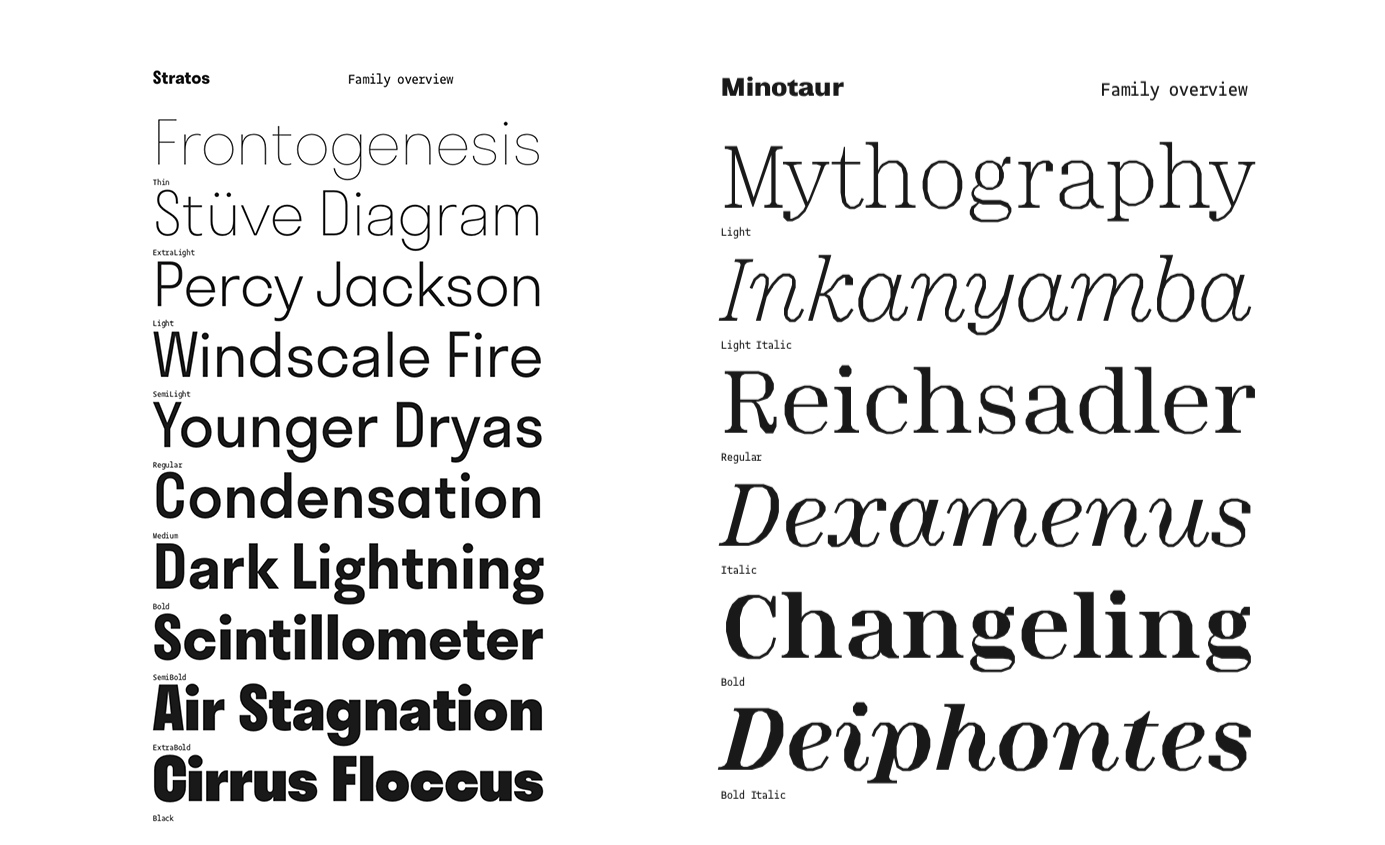
3. Is there any newly released typeface from your company?
This past Fall, we’ve been able to release PVC by the French designer Hélène Marian. It’s a fun series of 4 styles directly informed by her sign painting work. This year, we are focusing on expanding the “Proto” family, with Proto Grotesk Mono, a Cyrillic and Greek expansion, and Proto Slab Condensed.
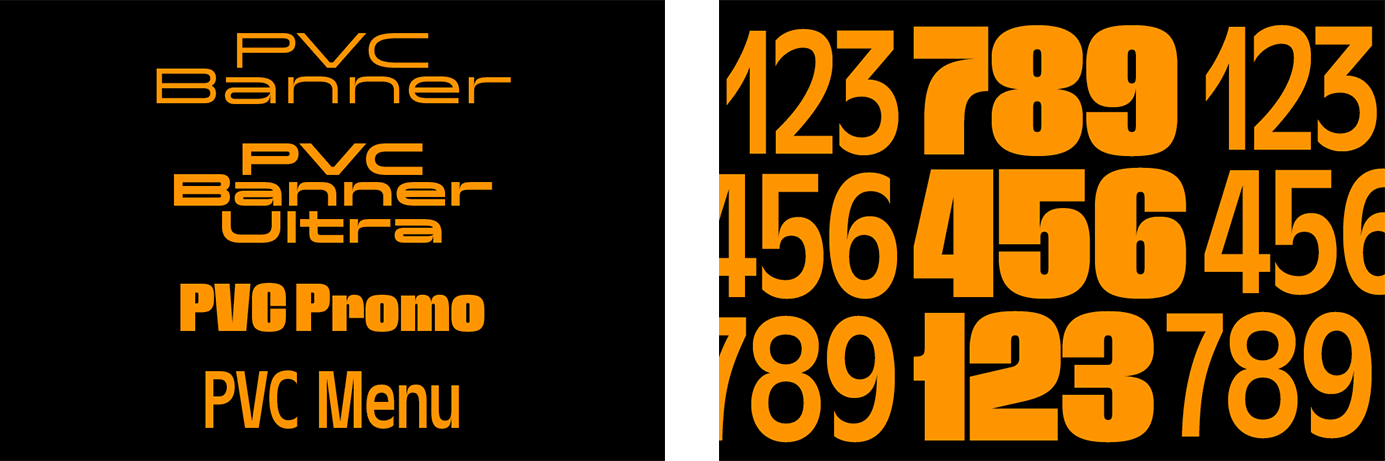
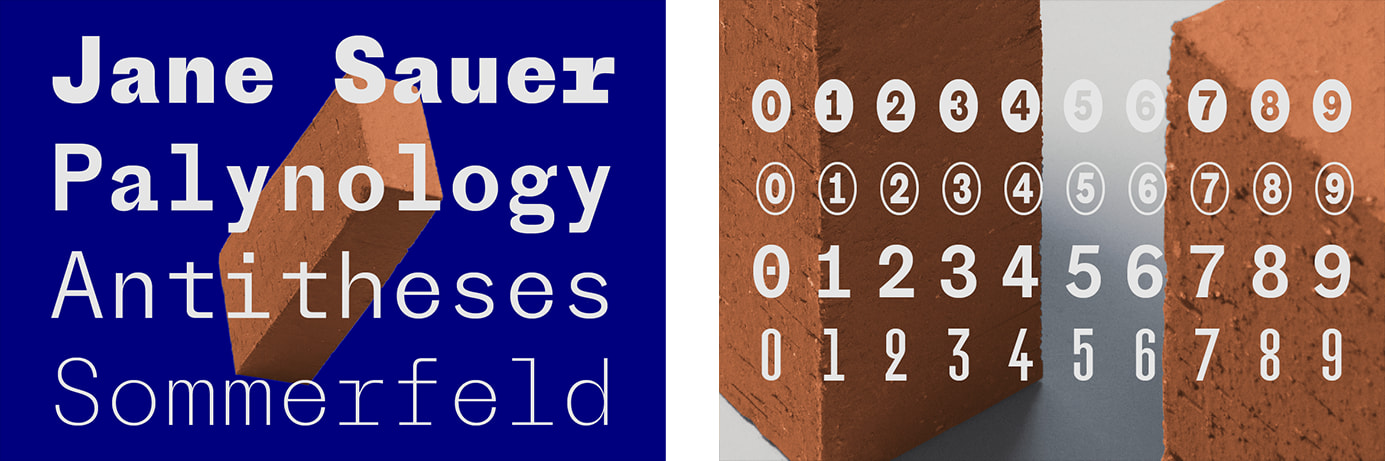
4. What is the ratio of your work for original design fonts and custom order fonts?
It’s a moving target, because you have to define custom orders. We do customize a lot of our catalogue, for instance. We try to rely less on projectbased incomes and more on products. This has worked well so far.
5. Can you tell us about your customer(s)? How do they use the font?
In the best unexpected ways I must say! When we design type, there is always a “cloud of possible uses” in mind. We wouldn’t be able to design anything without such projections. But we are always so far from the actual field! I’ve stopped being dogmatic about how to use type, and became more and more agnostic. Openness is key and is the perfect way to be pleasantly surprised.
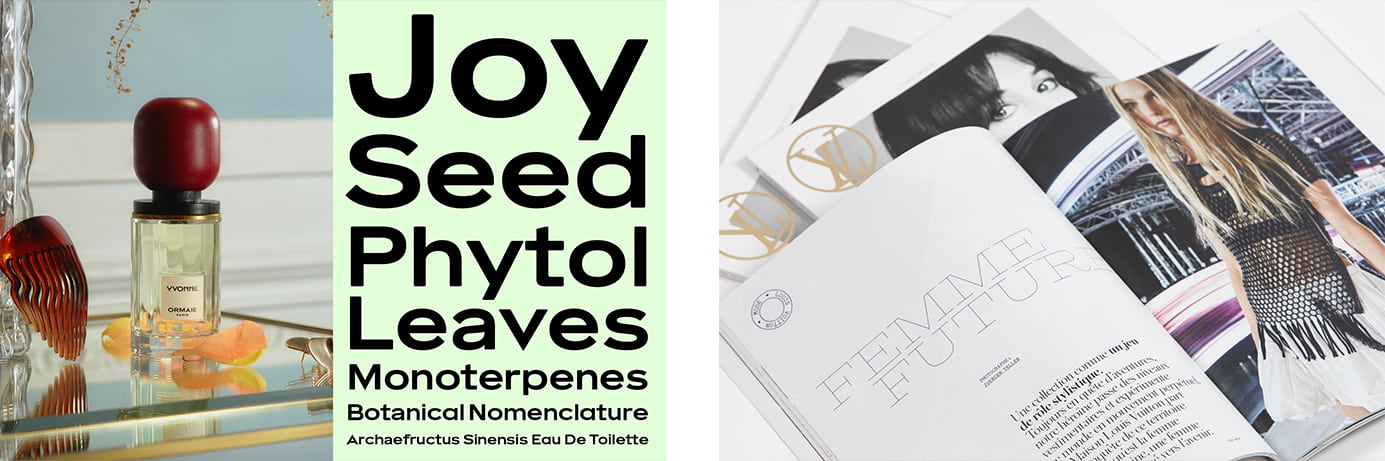
6. What kind of device(s) your customer has (have) embedded the font(s) with?
Anything from TV set-top boxes to sports cars… if it has a screen that displays type, there are good chances we’ve put one of our fonts in it.
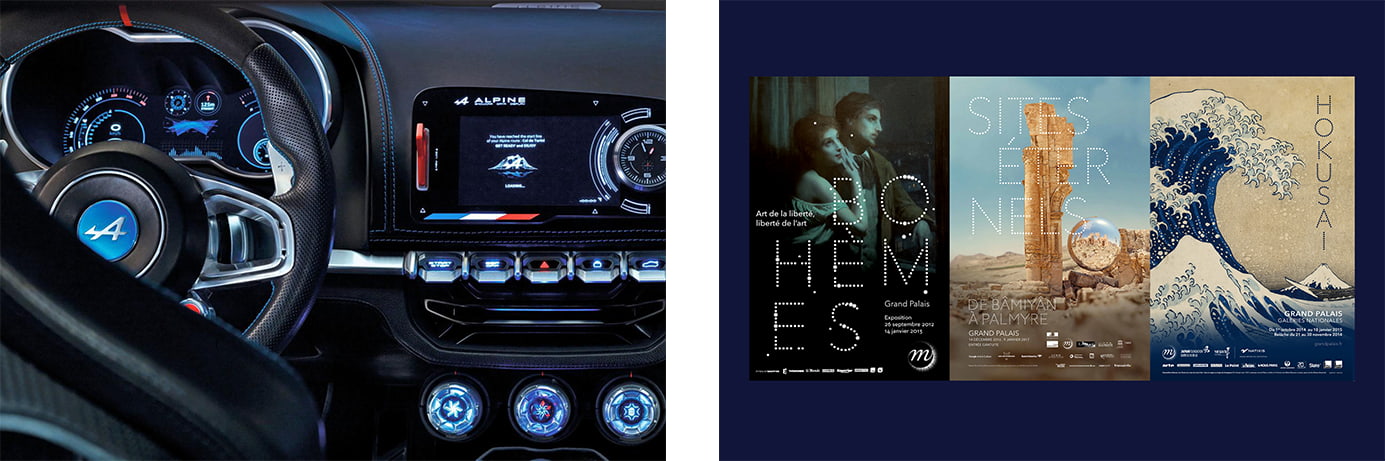
8. Can you tell us about what you are working on right now and what you will like to work on in the future?
We are expanding our retail catalog towards a broader offer for magazines and brands. That means we’ll have some more families released later this year. We are also working on custom fonts, as usual, which we’ll reveal at some point… or not.
9. What do you think about your company positioning, for its raison d’etre in the font design/development industry ?
I like to define it as “Useful type with an edge”. But another significant part, for me, and probably the lesser known, is our activity of publishing type specimens which also act as a documented essay on a specific part of type design culture.
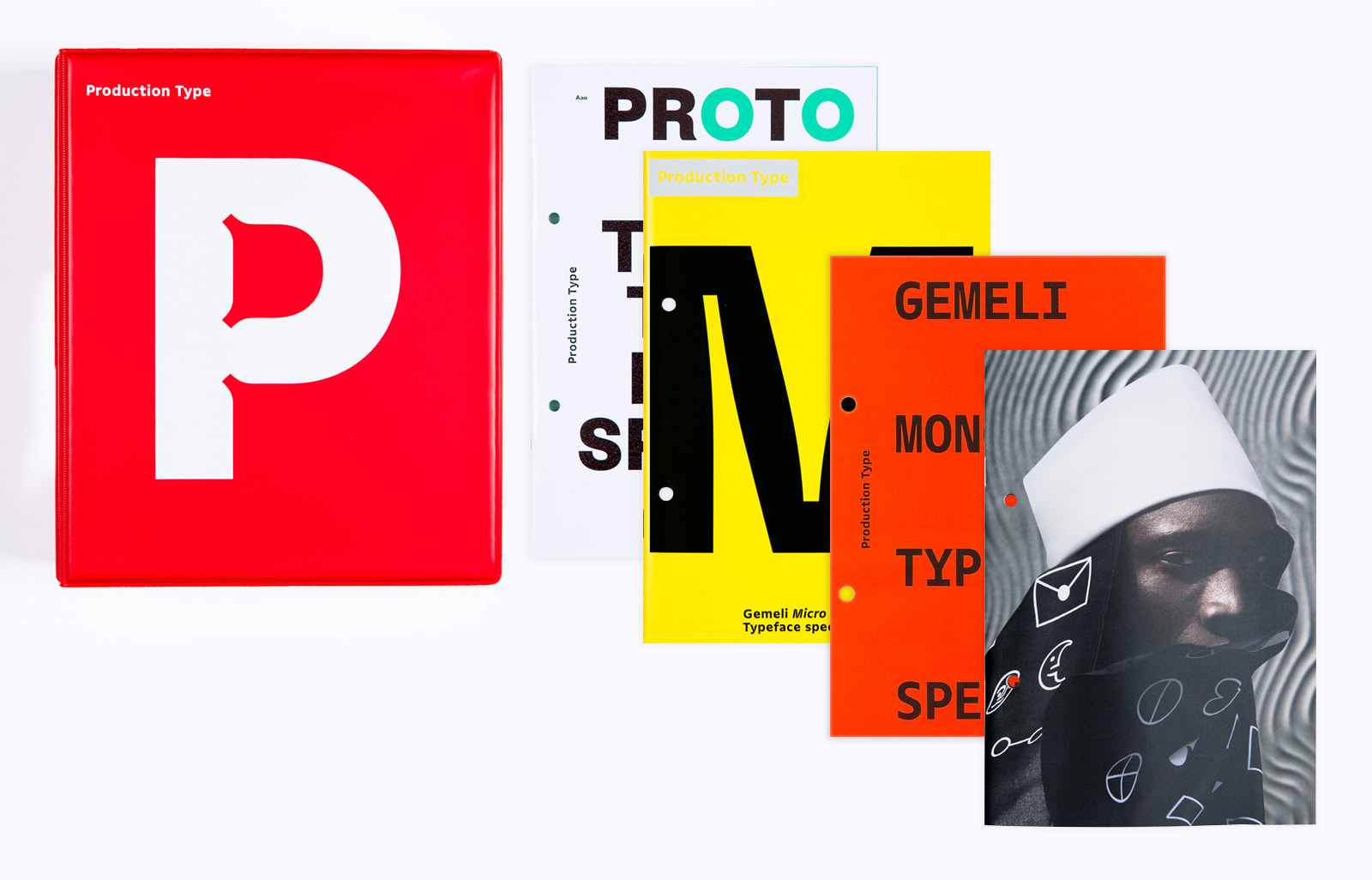
10. What is your opinion about open source font(s) and free font(s)?
Their existence is justified by the needs they address. I acknowledge they can prove to be value-creators if handled wisely.
11. What do you think about Type Project and do you have any expectation for us?
I a big fan of how you approach design! I expect us to have a stronger cooperation in terms of mutual understanding, and joint-offer for both our customerships.
12. What do you think about FitFont service?
That was a key factor in establishing brand consistency. FitFont enabled us to offer a perfect solution for our client, with the best of both the retail and the custom world, at a reasonable price. In the end, we were able to extend the brand voice in Japan while maintaining our quality standards.